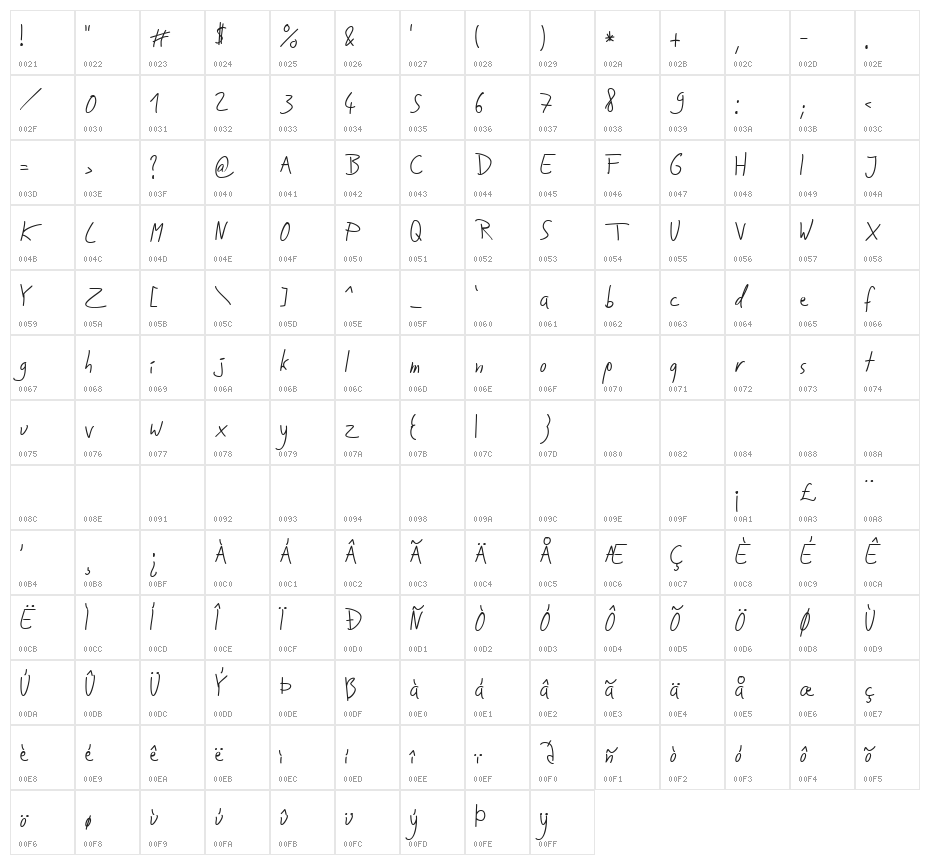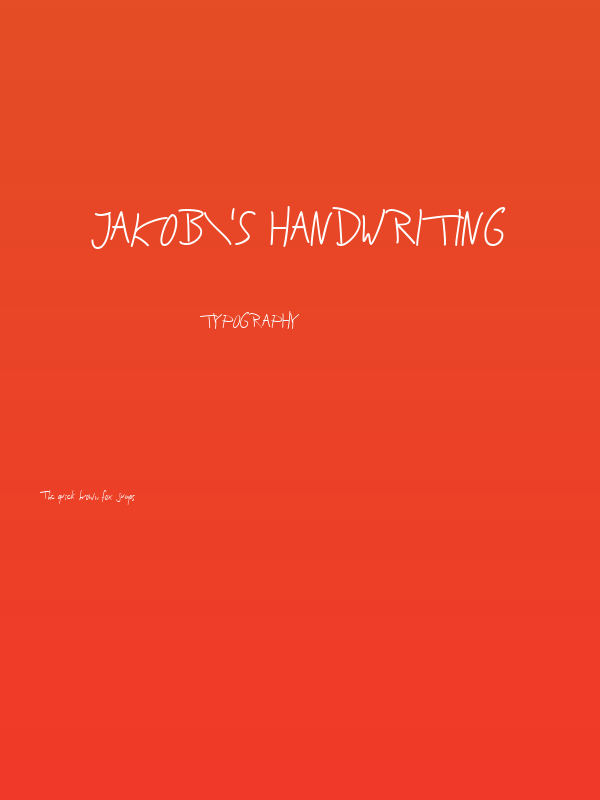
Jakob's Handwriting Font
Jakob's Handwriting Description
This font exudes a casual and personal touch, reminiscent of natural handwriting. The letters are slightly irregular, adding to its charm and authenticity. The strokes are smooth and flowing, with a consistent medium weight that makes it easy to read while maintaining a handwritten feel. The uppercase letters are bold and confident, while the lowercase letters are more relaxed and informal. The numerals and special characters are crafted with the same attention to detail, ensuring a cohesive look across all text. This font is perfect for projects that require a personal, approachable, and friendly tone.
| Use Case | Logos, Invitations, Personal notes |
| Proposed Projects | Ideal for personal notes, invitations, greeting cards, and any project needing a friendly, informal style. |